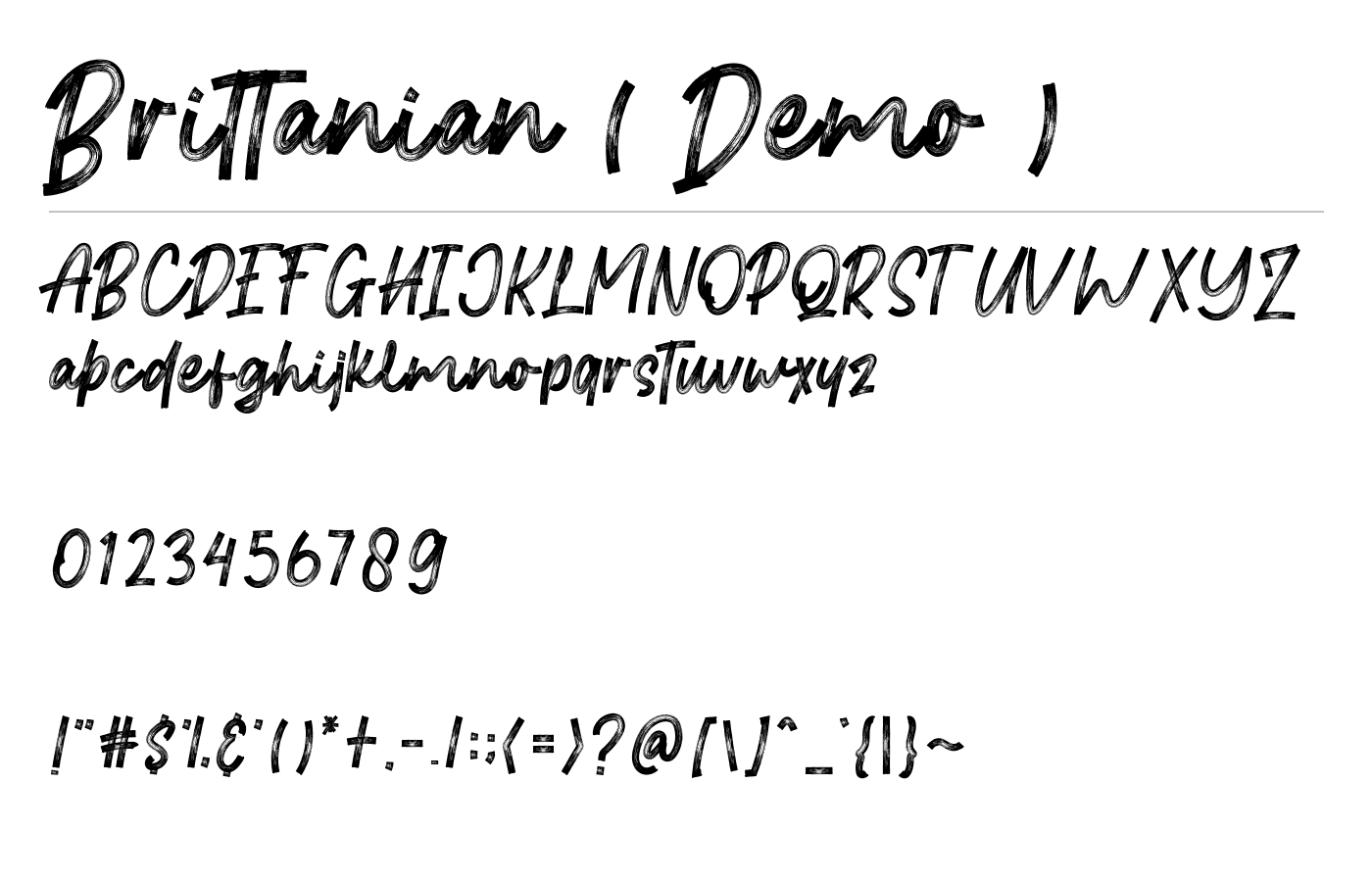
Brittanian (Demo) is a lively and expressive handwritten script font with a bold, textured stroke that gives it an energetic and artistic feel. Its casual, brush-style letterforms with variable thickness and slightly irregular shapes make it perfect for creative branding, posters, and eye-catching headlines that need a personal and dynamic touch. This font works well in contexts where a fun, informal, and handcrafted appearance is desired to convey personality and uniqueness.
Brittanian ( Demo ) Font
About Brittanian ( Demo ) Font
| Designer | Stefie Justprince |